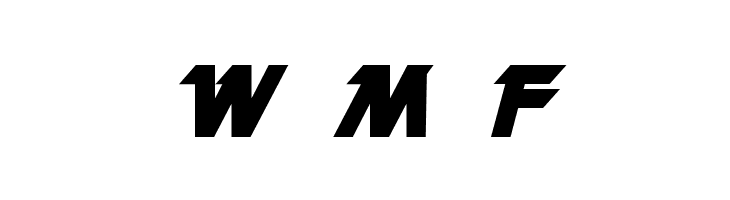
A whimsical and decorative font with intricate loops and curls.
A decorative, nature-inspired italic font with a leaf-like pattern.
A playful, nature-inspired font with characters formed by leaf-like elements.
Geometric decahedron dice symbol font with numbers and dot patterns.
A modern, textured geometric sans-serif font with rounded edges.
A bold, textured font with a rugged, geometric style.
A whimsical handwritten font with playful, irregular strokes and creative decorative elements.
A fluid and dynamic handwritten font with smooth curves and natural elegance.
A bold, geometric font with a futuristic and modular design.
A modern, dynamic font with parallel line patterns creating a sense of movement.
A bold, geometric font with strong, modern letterforms.
A vintage, typewriter-inspired font with a textured, worn appearance.
A modern serif font with clean lines and balanced proportions.
Decorative numerals inside icosahedron shapes, mimicking dice.
Polygonal, iconographic set with numbers, letters, and symbols in octagonal shapes.
Monospaced numerals inside dodecahedron outlines, geometric and uniform.
A textured, dot-patterned font with rounded, approachable characters.
A bold, modern font with geometric and futuristic design elements.
A bold, futuristic font with angular, geometric shapes and a modern, tech-inspired style.
A bold, modern font with geometric lines and minimal contrast.
A bold, angular font with a three-dimensional, futuristic style.
A bold, angular font with a futuristic and edgy design.
A bold, oblique font with a futuristic and dynamic style.
A bold, gothic-inspired font with sharp, angular edges and dramatic curves.
A bold, futuristic font with geometric shapes and a tech-inspired design.
A playful, casual handwritten font with smooth, rounded strokes.
A bold, playful handwritten font with rounded edges and a casual style.
A playful, handwritten font with fluid, interconnected strokes.
A casual, handwritten-style font with irregular strokes and playful character spacing.